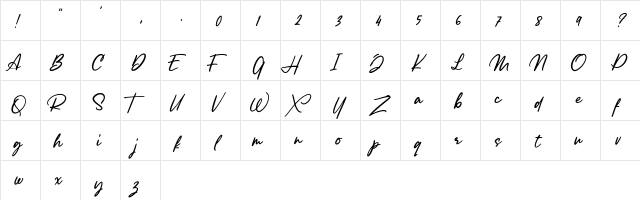
Lancaste Script Alt Demo Regular
| Foundry | Runsell Studio |
| Designer | Satia Hayu P |
Design Context for Lancaste Script Alt Demo Typeface
Lancaste Script Alt Demo flows with the natural rhythm of handwritten lettering, making it ideal for designs that call for warmth and personal expression.
Font Pairing: Combine Lancaste Script Alt Demo with a simple geometric sans for maximum contrast — the tension between flowing curves and clean structure is a classic typographic pairing.
Pro Tip: Use Lancaste Script Alt Demo for short runs of text — names, titles, or taglines. Extended body copy in script faces tires the eye quickly.